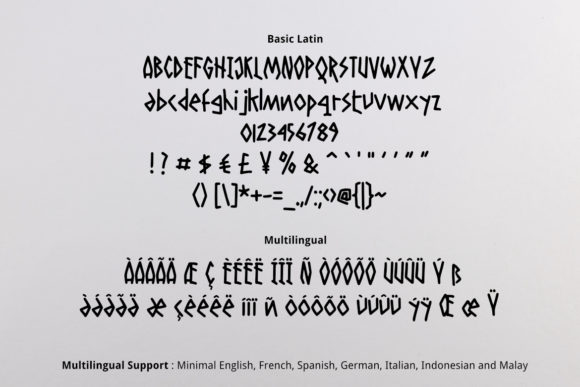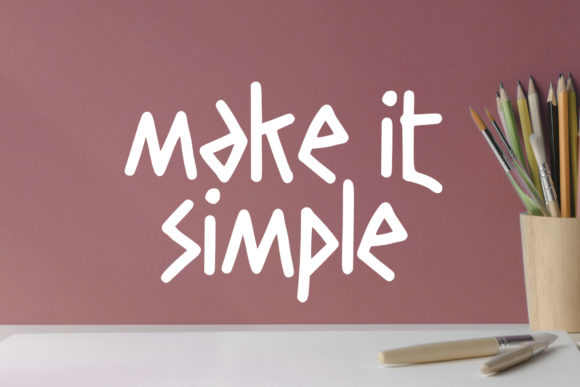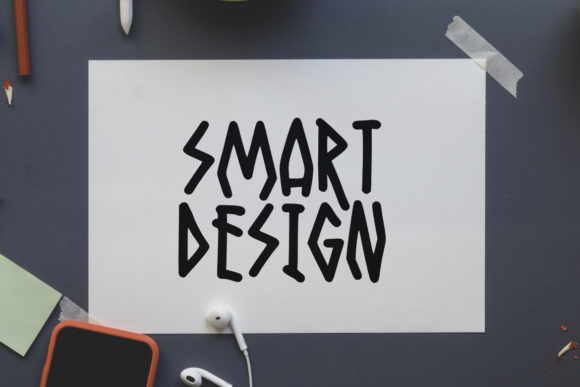
Meet Your New Design BFF: Kinema Font
Have you ever been browsing through a trendy cafe, sipping on a latte, and suddenly, a sign catches your eye? Maybe it’s a quirky menu board or a vibrant advertisement that makes you pause and smile. That’s the magic of design – it can stop us in our tracks and leave a lasting impression. And that’s exactly what Kinema Font is designed to do.
Kinema Font is a playful, urban styled display font that’s perfect for adding a touch of whimsy to your design projects. Friendly and a bit quirky, this font will look incredibly fit on a variety of informal design ideas, from social media graphics to event posters.
- Unique Characteristics: Kinema Font is a sans-serif font with a unique, geometric design inspired by Japanese typography. It features clean lines, minimal ornamentation, and a highly legible character set.
Designer Review: Kinema Font
Overall, I think the Kinema Font is a visually appealing choice for any design project. Its unique blend of classic and modern elements ✨ catches the eye and adds a touch of sophistication to any text-based element.
The font’s versatility is one of its strongest assets. It comes in a range of weights and styles, making it easy to use in a variety of contexts, from headlines and titles to body text and captions.
- ✨ Unique blend of classic and modern elements
- ✨ Versatile and easy to use
- ✨ Range of weights and styles available
- ✨ Suitable for a wide range of design projects
- ⚠️ Limited language support (may not be ideal for projects requiring multiple languages)
- ⚠️ Some users may find the font’s style too ornate or distracting
- ⚠️ May not be the best choice for projects requiring a highly legible font
Overall, I think the Kinema Font is a solid choice for designers looking for a unique and visually appealing font. While it may have some limitations, its versatility and range of styles make it a valuable addition to any design toolkit.
Tips for Getting the Most Out of Kinema Font
To get the most out of Kinema Font, follow these tips:
- Combine Kinema Font with other fonts to create a visually appealing design.
- Use Kinema Font to add a touch of nostalgia or retro flair to your design.
Common Use Cases for Kinema Font
Kinema Font is commonly used in:
- Designing retro-themed posters and advertisements.
- Warm color scheme: Choose a palette of golden yellows, deep reds, and rich browns to recreate the nostalgic feel.
- Grainy texture overlay: Add a grainy texture to the background to give it a vintage look.
- Classic filmstrip pattern: Incorporate a classic filmstrip pattern in the background to enhance the retro feel.
- Minimalist color scheme: Opt for a simple, monochromatic color scheme to emphasize the elegance of the sign.
- Traditional Japanese motifs: Incorporate traditional Japanese motifs, such as cherry blossoms or waves, to add cultural significance.
- Geometric patterns: Use geometric patterns, such as chevrons or herringbone, to add visual interest and depth.
Alternatives to Kinema Font
Playfair Display is a luxurious, high-end font ideal for magazine titles, book covers, and other high-end branding materials. Its elegant and sophisticated design makes it a great choice for designers looking to create a premium feel.
Compared to Kinema Font, Playfair Display has a more formal and classic design, whereas Kinema Font has a more modern and edgy feel. Playfair Display is better suited for traditional and vintage-inspired designs, while Kinema Font excels in modern and trendy designs.